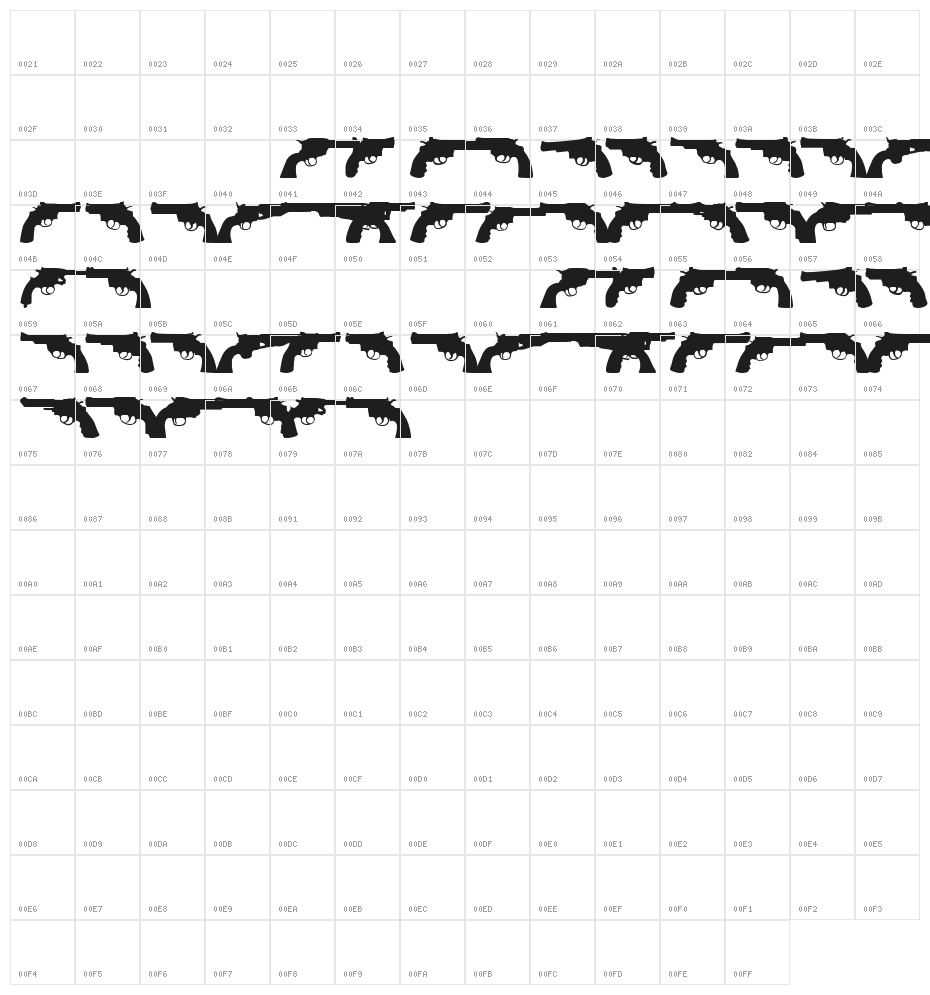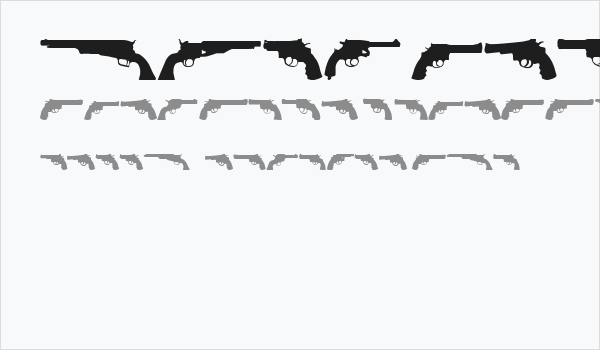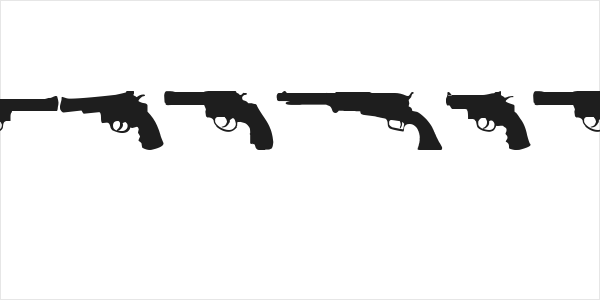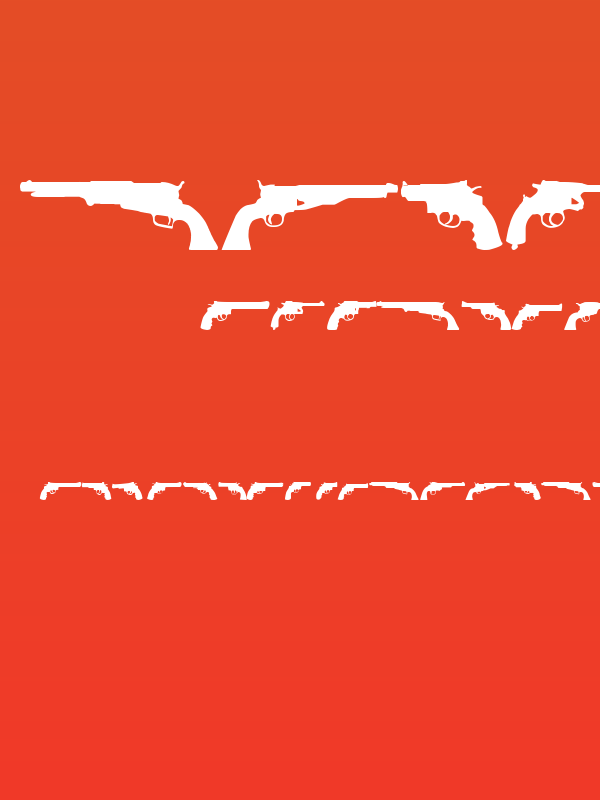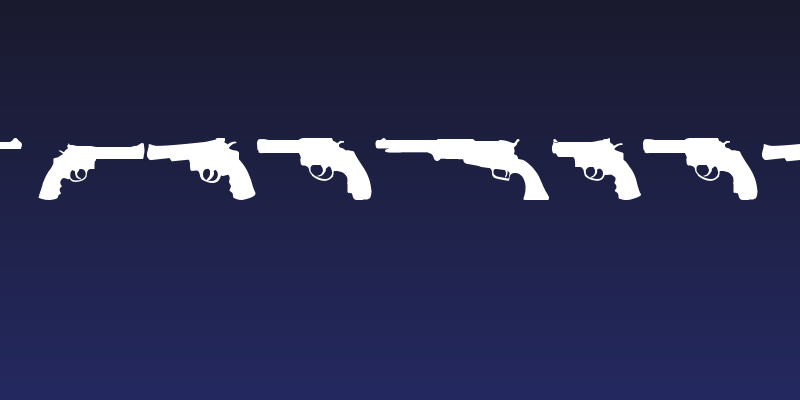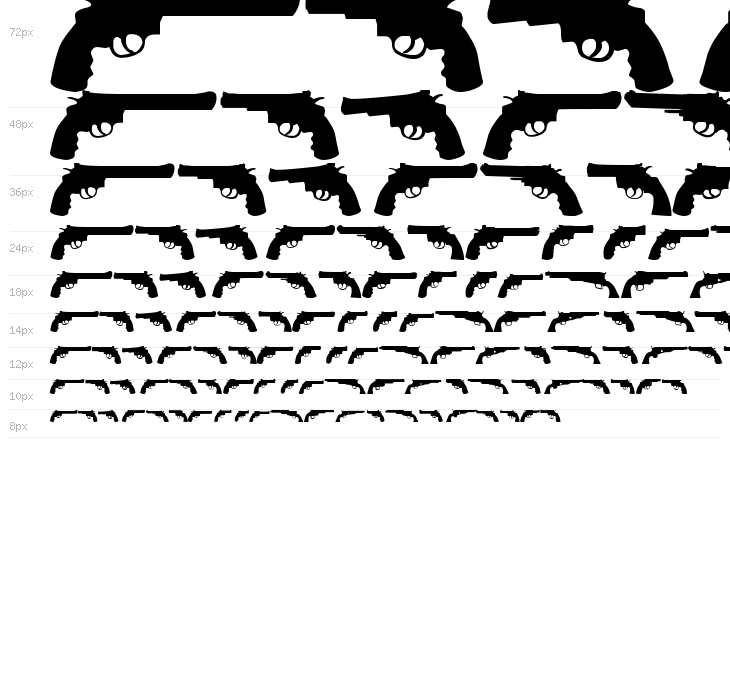
only revolver tfb Font
only revolver tfb Description
This unique design features silhouettes of revolvers in place of traditional alphanumeric characters. Each character is represented by a distinct revolver shape, creating a bold and unconventional visual style. The design is consistent across all characters, maintaining a uniform appearance that emphasizes the iconic shape of the revolver. This font is highly decorative and is intended for specific thematic uses rather than general readability. Its striking appearance makes it suitable for projects that require a strong visual impact and a thematic connection to firearms or Western motifs.
| Use Case | Logos, Themed posters, Event invitations |
| Proposed Projects | Ideal for themed posters, event invitations, or branding related to Western or firearm-related themes. |